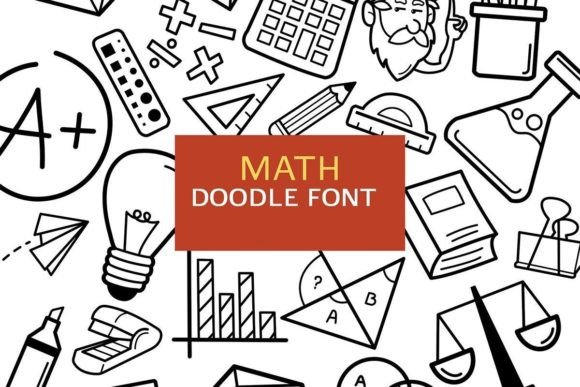
Looking for the perfect font to add a touch of fun and creativity to your back-to-school projects? Look no further than Math Doodle Font by digitalplannerland! This incredible dingbats font is exactly what you need to elevate your designs and captivate your audience.
Math Doodle Font is not your ordinary font - it's a unique blend of playfulness and utility. With a wide range of doodle-inspired characters, this font allows you to express your creativity in a whimsical and engaging way. From cute numbers and math symbols to adorable school-themed icons, Math Doodle Font has it all.
Whether you're designing educational materials, creating personalized stationery, or crafting eye-catching posters, Math Doodle Font is the ultimate tool to make your projects stand out. Its versatility knows no bounds, making it suitable for both digital and print media.
When you use Math Doodle Font, you'll experience a surge of excitement and inspiration. The charming doodles will evoke a sense of nostalgia and joy, reminding you of your school days and the fun of learning. This emotional connection will resonate with your audience, creating a memorable and impactful experience.
But Math Doodle Font isn't just about aesthetics - it's also incredibly practical. The carefully crafted characters ensure clear legibility, making it ideal for educational materials and worksheets. Teachers and students alike will appreciate the clarity and readability of this font, enhancing the learning experience.